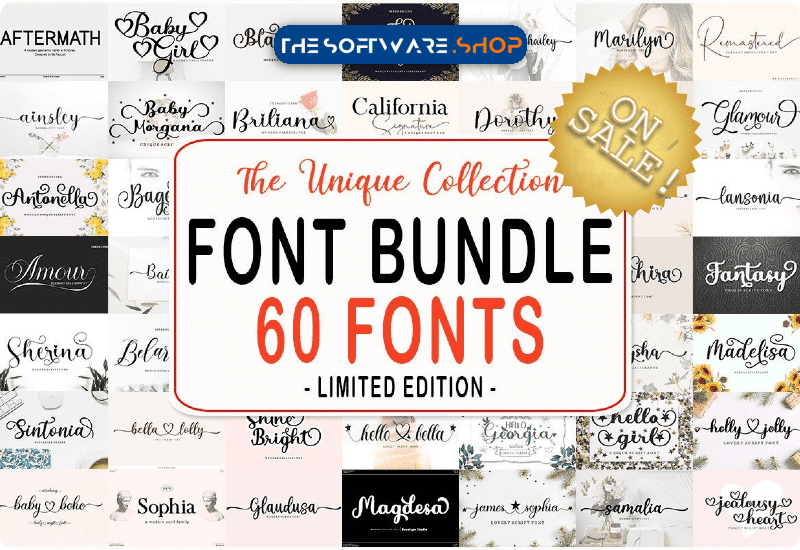
The Unique Collection Font Bundle features 60 premium script fonts that will elevate any creation. From swirly calligraphy to playful cursive, this collection has something for everyone. Whether you’re designing greeting cards, wedding invitations, logos, labels, book covers, or anything in between, these fonts are sure to add a touch of elegance and sophistication to your work.
- Amour Script Script & Handwritten Font
- Baby Boho Script Font
- Remastered Callihrapgic Font
- Aftermath Sans Serif Font
- California Signature Script & Handwritten Font
- Hello Girl Calligraphic Font
- Butterfly Script Font
- The Bentley Script Font
- Juslia Sophia Display Font
- Baby Girl Script Font
- Jealousy Heart Script & Handwritten Font
- Cochella Script & Handwritten Font
- Sophia Serif Font
- Hello Bella Script & Handwritten Font
- Hello Georgia Script & Handwritten Font
- Baby Morgana Script Font
- Oh Amazing Script & Handwritten Font
- Stay Gracious Script & Handwritten Font
- Oh Manoghara Diplay Font
- Marilyn Polices Display font
- James Sophia Script & Handwritten Font
- Marlyna Script & Handwritten Font
- Ainsley Script & Handwritten Font
- Shine Bright Script Font
- Bella Lolly Script & Handwritten Font
- Girabella Script & Handwritten Font
- Sintonia Display Font
- Lansonia Script & Handwritten Font
- Sonika Script Display Font
- Marbella Script & Handwritten Font
- Pretty Sweet Script & Handwritten Font
- Love Julia Script & Handwritten Font
- Bageline Display Font
- Jack Lady Script & Handwritten Font
- Dorothy Character Font
- Mogaloa Script & Handwritten Font
- Madelisa Display Font
- Arora Script & Handwritten Font
- Fantasy Script & Handwritten Font
- Kazuhira Script & Handwritten Font
- Bailey Calligraphic Font
- Glamour Character Font
- Kaysha Script & Handwritten Font
- Marlyn Malson Skrip Font
- Ghetto Script & Handwritten Font
- Holly Jolly Script Font
- Samalia Script Font
- Glaudusa Script & Handwritten Font
- Anulika Script Font
- Belarisha Script & Handwritten Font
- Mickeala Script & Handwritten Font
- Blazeska Script & Handwritten Font
- Perfect Script Font
- Haston Hailey Script Font
- Magdesa Dosplay Font
- Sherina Script & Handwritten Font
- Briliana Script & Handwritten Font
- Antonella Script & Handwritten Font
- Jawelery Script & Handwritten Font
- Berlyn Script & Handwritten Font
What’s even better is that most of these fonts are PUA encoded, which means you can access all of the special characters with ease. This makes it easy to create beautiful designs with unique and eye-catching details.
The fonts included in this bundle are truly unique and diverse. You’ll find everything from delicate and feminine scripts like Amour Script and Baby Girl Script, to bold and modern fonts like Aftermath Sans Serif and Sintonia Display. And with so many options to choose from, you’re sure to find the perfect font for your project.